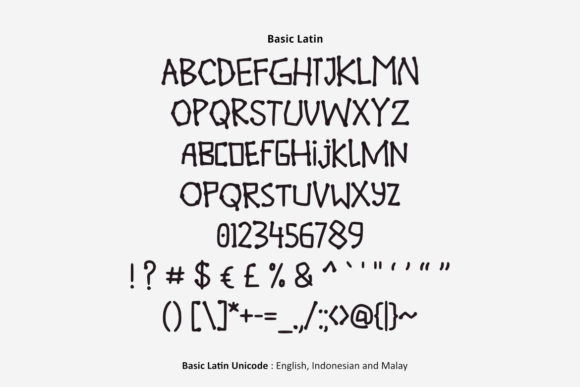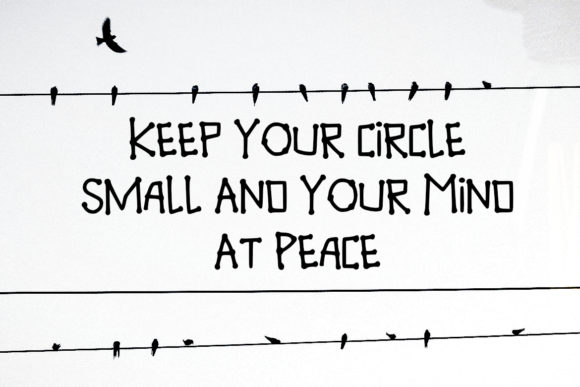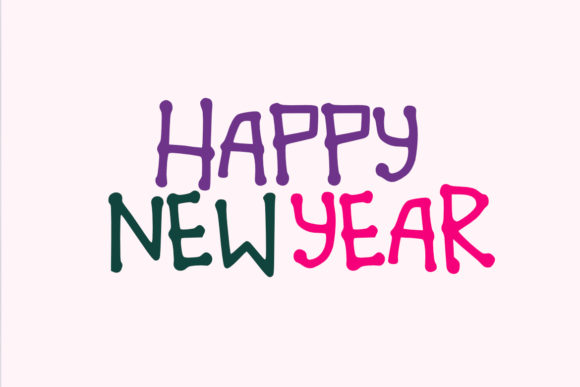
Introducing Electric Dot Font: The Friendly and Fun Handwritten Font for Creative Projects
Are you a designer, crafter, or DIY enthusiast looking for a unique and playful font to elevate your creative projects? Look no further than Electric Dot Font! This friendly and fun handwritten font is perfect for logos, branding, social media, and a wide range of crafty DIY projects. In this article, we’ll dive into the features and benefits of Electric Dot Font, and explore how it can add a touch of personality and whimsy to your designs.
What is Electric Dot Font?
Electric Dot Font is a clean and quirky handwritten font that’s designed to bring a smile to your face. With its playful and approachable vibe, this font is ideal for creatives who want to add a personal touch to their work. Whether you’re designing a logo, creating social media graphics, or working on a crafty DIY project, Electric Dot Font is the perfect fit.
Key Features of Electric Dot Font
- Handwritten charm: Electric Dot Font has a warm and inviting handwritten feel that’s perfect for adding a personal touch to your designs.
- Clean and quirky: This font has a clean and modern aesthetic with a dash of quirkiness, making it perfect for creatives who want to stand out from the crowd.
- Versatile: Electric Dot Font can be used for a wide range of projects, from logos and branding to social media graphics and DIY crafts.
- Easy to read: Despite its playful vibe, Electric Dot Font is easy to read and understand, making it perfect for use in body text and captions.
Benefits of Using Electric Dot Font
So why choose Electric Dot Font for your creative projects? Here are just a few benefits of using this friendly and fun font:
- Adds personality to your designs: Electric Dot Font is the perfect way to add a touch of personality and whimsy to your designs, setting them apart from more generic and boring fonts.
- Perfect for crafty DIY projects: If you’re working on a crafty DIY project, Electric Dot Font is a great choice. Its playful vibe and handwritten charm make it perfect for adding a personal touch to your creations.
- Great for social media graphics: Electric Dot Font is also perfect for social media graphics, where you want to stand out from the crowd and grab people’s attention.
Examples of Electric Dot Font in Action
So what does Electric Dot Font look like in action? Here are a few examples of how this friendly and fun font can be used in different creative projects:
- Logos and branding: Electric Dot Font is perfect for logos and branding, where you want to create a memorable and recognizable identity for your business or brand.
- Social media graphics: This font is also great for social media graphics, such as Facebook posts, Instagram stories, and Twitter headers.
- Crafty DIY projects: Electric Dot Font is perfect for crafty DIY projects, such as handmade cards, gift tags, and scrapbooking.
| Font Name | Electric Dot Font |
| Author | ArdiDesigns |
In conclusion, Electric Dot Font is a friendly and fun handwritten font that’s perfect for designers, crafters, and DIY enthusiasts. With its clean and quirky aesthetic, this font is ideal for adding a touch of personality and whimsy to your creative projects. Whether you’re working on a logo, social media graphic, or crafty DIY project, Electric Dot Font is a great choice. So why not give it a try and see the difference it can make?
Get ready to spark creativity with Electric Dot Font!